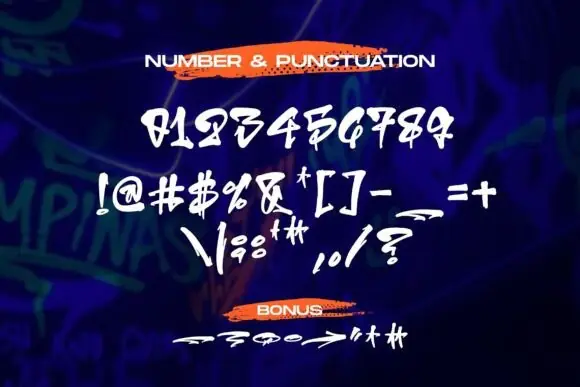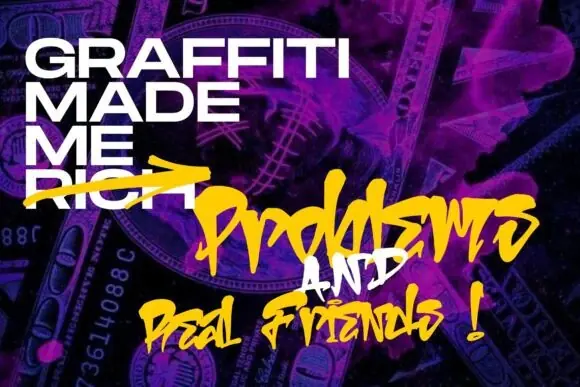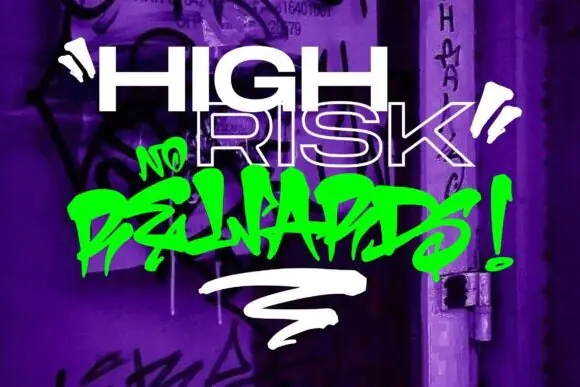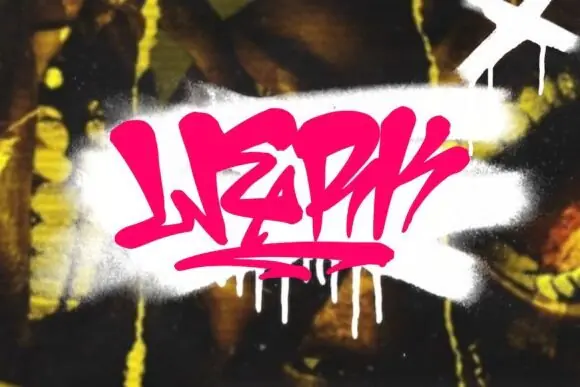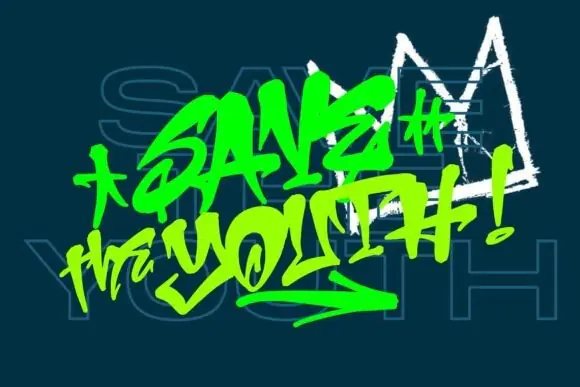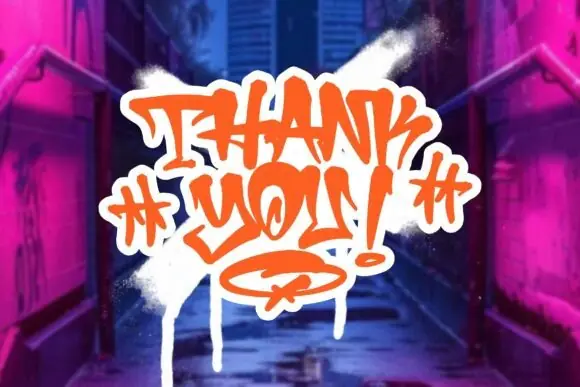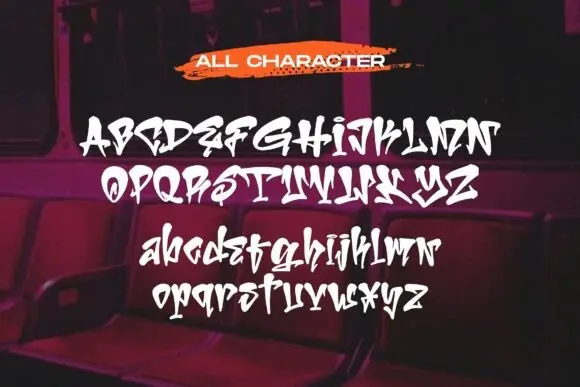
Create bold, energetic, and eye-catching designs with Madison Font, a strong graffiti-style typeface made for street art inspired projects. With its bold lettering and readable urban look, this font is perfect for designs that need a powerful visual impact and modern street-style personality.
Madison Font is ideal for designers, digital creators, poster makers, game designers, merchandise sellers, print-on-demand creators, and branding projects that need a standout graffiti aesthetic. Its bold style works beautifully for posters, movie and film titles, logos, game graphics, book covers, headlines, titles, apparel designs, stickers, album artwork, and social media graphics.
Design Style:
Bold, graffiti, street art, urban, modern, readable, energetic, expressive, strong, decorative, creative, and attention-grabbing.
Use Madison Font to give your creative projects a powerful street-art personality and make your typography stand out with bold urban character.